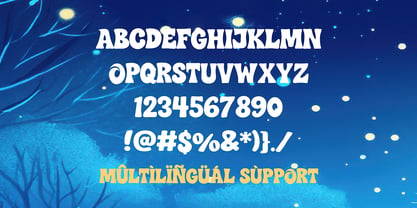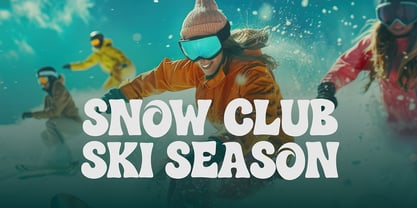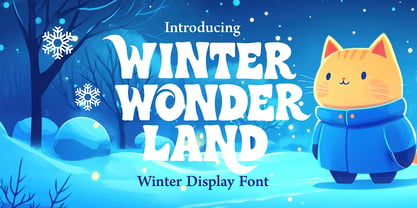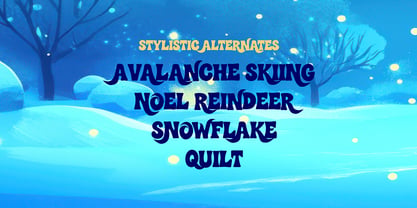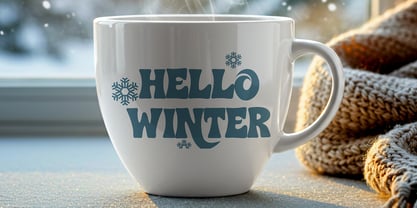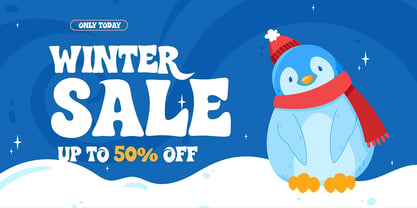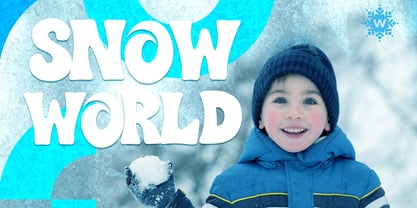
Winter Wonder Land
Winter Wonderland is a charming winter display font that brings the magic of snowy nights and festive storytelling into your designs. With smooth curves, whimsical letterforms, and frosty details, it perfectly captures the cozy, playful feeling of wintertime.
Designed to be versatile, this font is ideal for holiday cards, Christmas branding, children’s books, posters, party invitations, packaging, seasonal campaigns, and magical social media graphics. Each letter radiates warmth and joy, making it suitable for both kids’ designs and elegant festive compositions.
The typeface includes uppercase, lowercase, punctuation, numerals, and multilingual support. Its playful curves and subtle decorative touches ensure that every design feels enchanting and unique.
Why designers love it:
• Magical winter atmosphere in each character
• Perfect for holiday & seasonal designs
• Playful curves with strong readability
• Multilingual support for global projects
• Great for both print and digital
Whether you’re designing a festive campaign or creating cozy holiday artwork, Winter Wonderland is the perfect winter display font to make your projects sparkle.